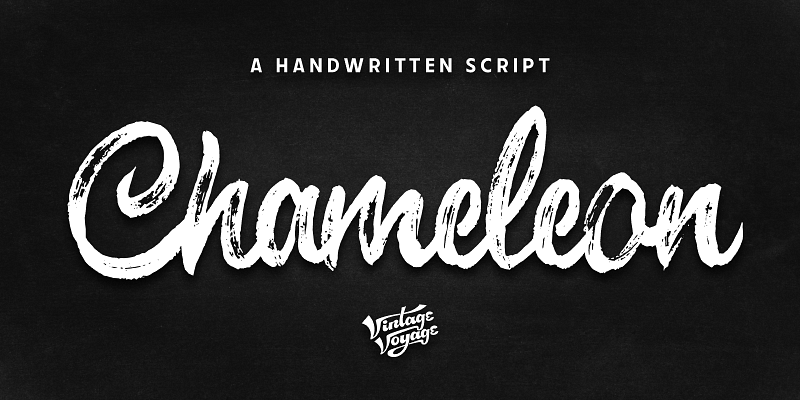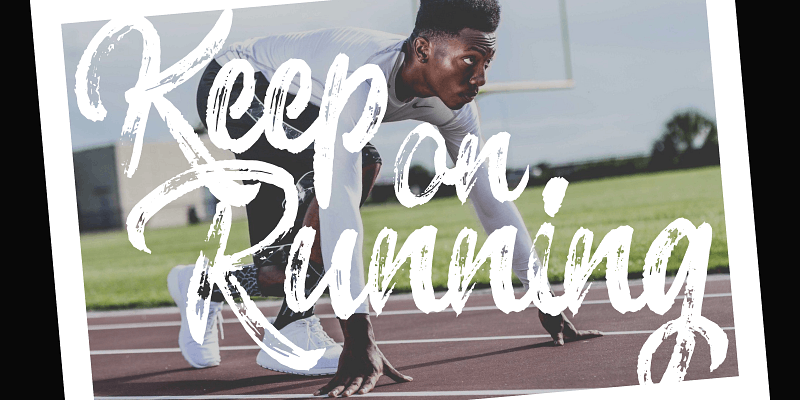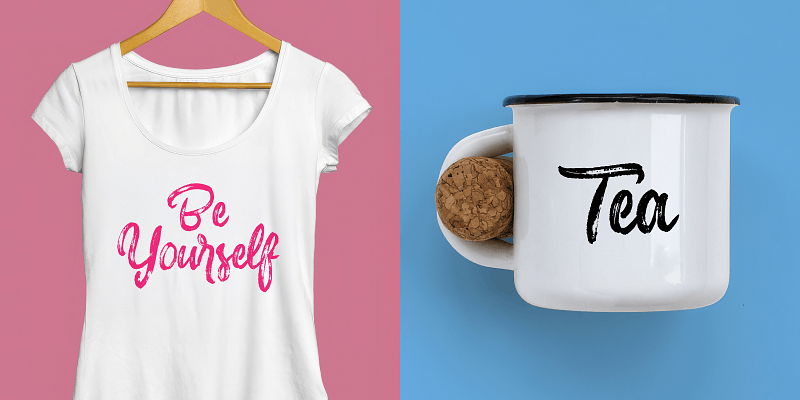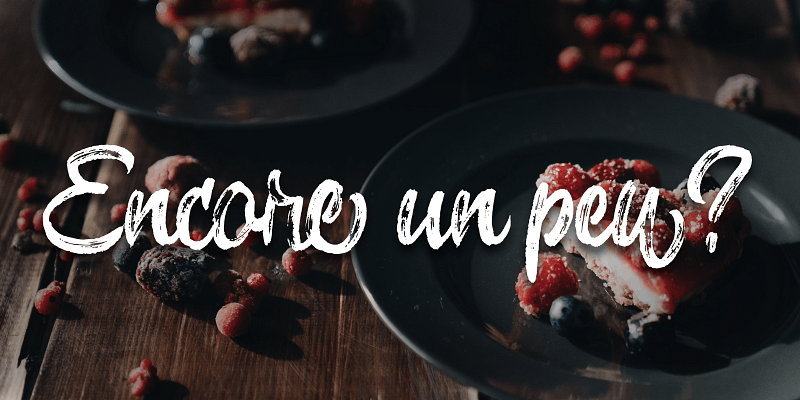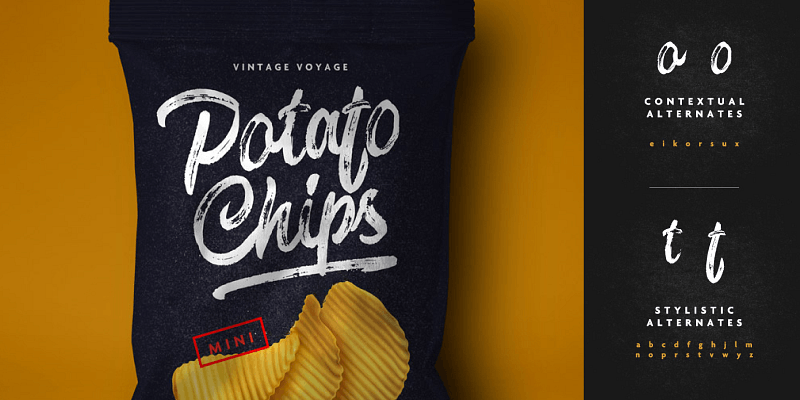
Chameleon is a bold hand-brushed script with rough edges and strong personality. Designed for projects that need energy and attitude. Great for posters, apparel, branding, and anything that calls for a raw, handcrafted touch. Full of character and made to stand out.